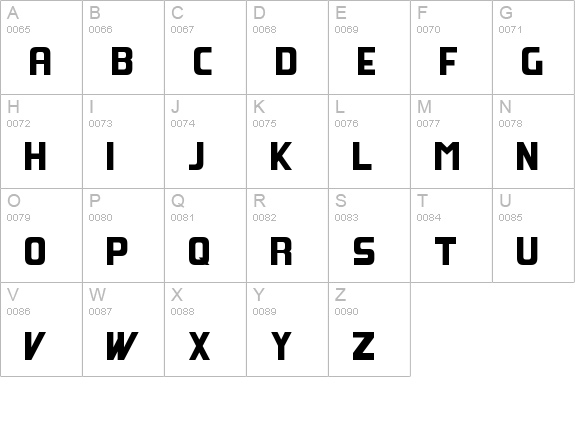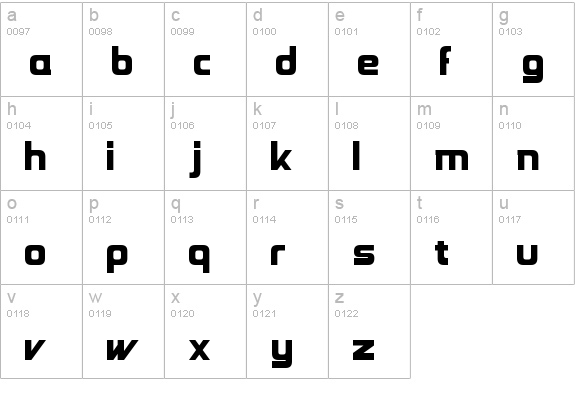
Groovy Fast Font Details
Introducing Groovy Fast, a captivating and dynamic font that will bring an instant burst of energy to your designs. With its sleek and modern aesthetic, this font is perfect for projects that require a touch of excitement and vibrancy. Groovy Fast is a versatile typeface that seamlessly blends boldness with elegance, making it suitable for a wide range of design applications. Whether you're creating eye-catching posters, attention-grabbing headlines, or stylish logos, this font will effortlessly elevate your designs to the next level. What sets Groovy Fast apart is not only its striking visual appeal but also its accessibility. This font is available for free, allowing designers of all levels to enjoy its unique and energetic style without any restrictions. You can easily download Groovy Fast at FontsMarket.com, a trusted source for high-quality fonts. With its clean lines and smooth curves, Groovy Fast brings a sense of speed and motion to your designs, making it ideal for projects related to sports, technology, fashion, and more. Its versatility extends beyond just headlines and titles, as the font also offers a wide range of glyphs and characters that make it perfect for body text and paragraphs as well. Whether you're a professional designer or a creative enthusiast, Groovy Fast is a font that will inspire and empower you to create visually stunning and impactful designs. Its free availability at FontsMarket.com ensures that you can experiment and explore the endless possibilities this font has to offer without any limitations. So why wait? Download Groovy Fast today and let your creativity soar as you unleash the power of this captivating and freely accessible font.